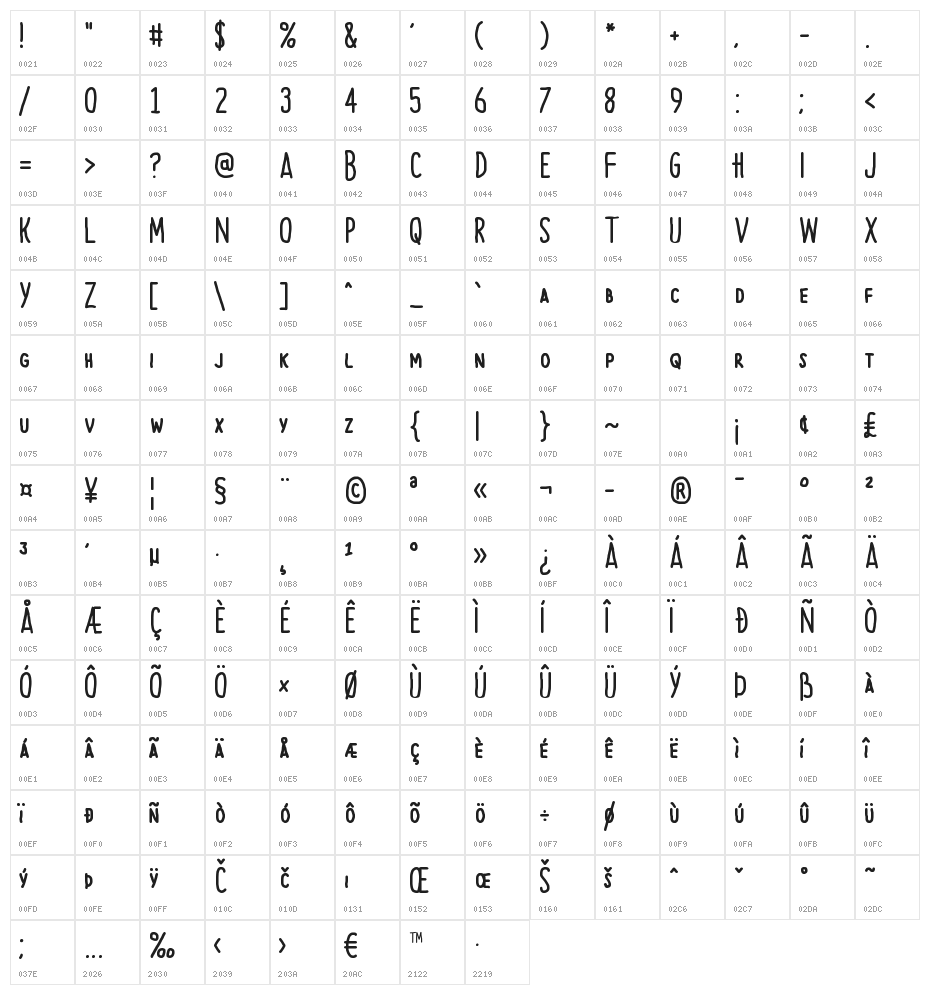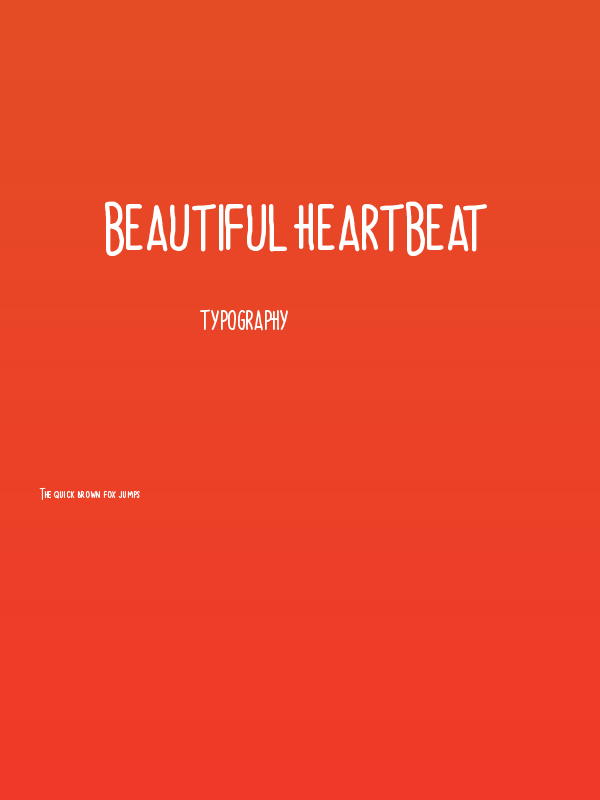
Beautiful Heartbeat Font
| Gesamtstil | Casual |
| Anwendungsfall | Headlines, Logos, Informal Text |
| Vorgeschlagene Projekte | Ideal for greeting cards, invitations, social media graphics, and personal branding. |